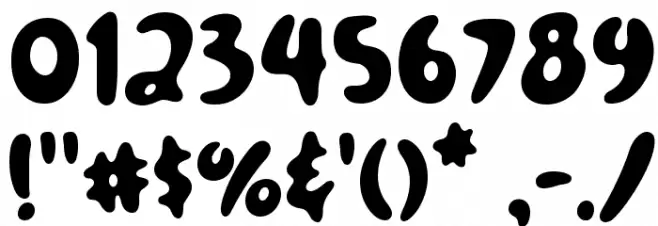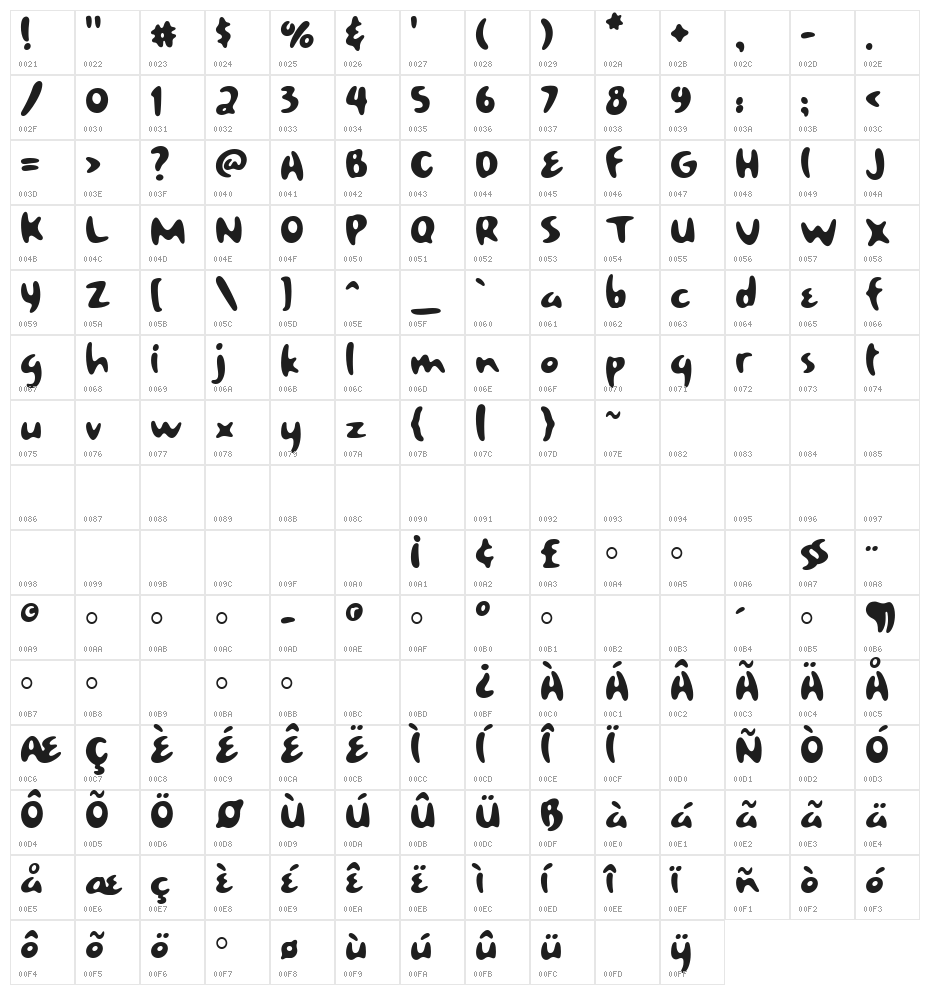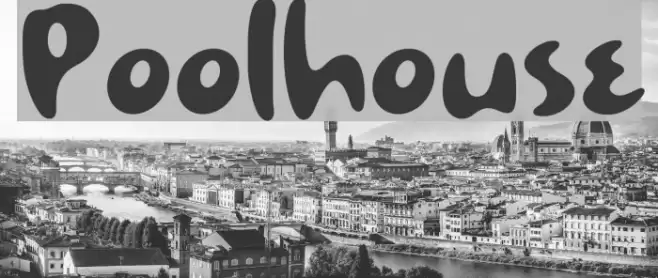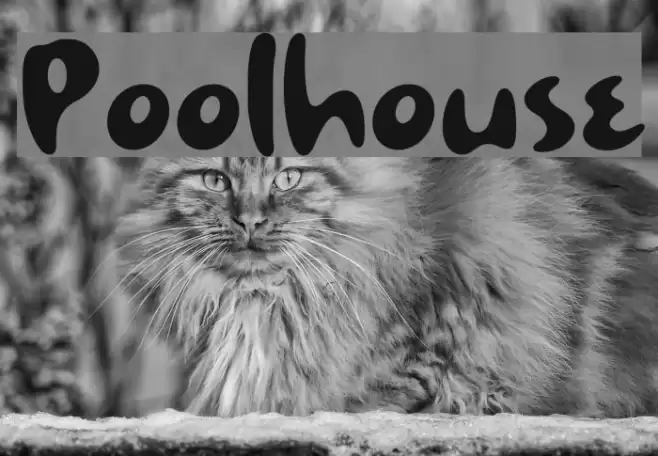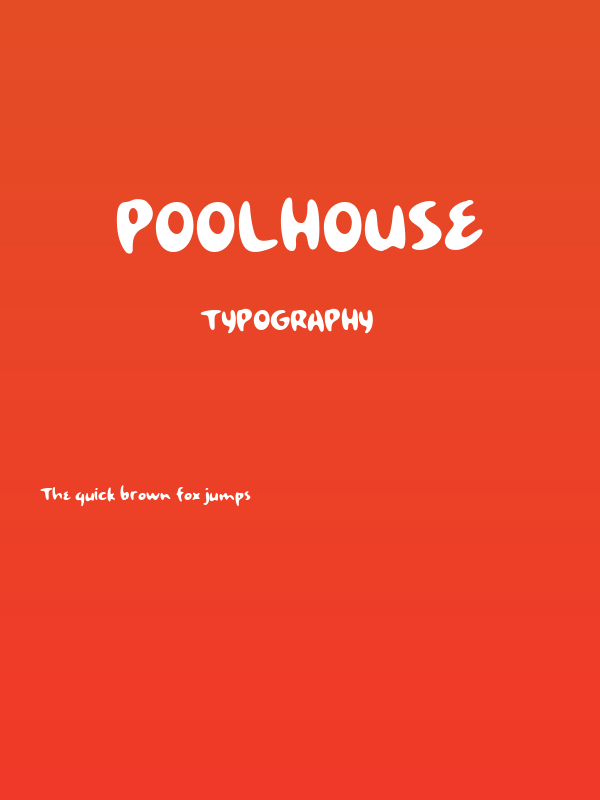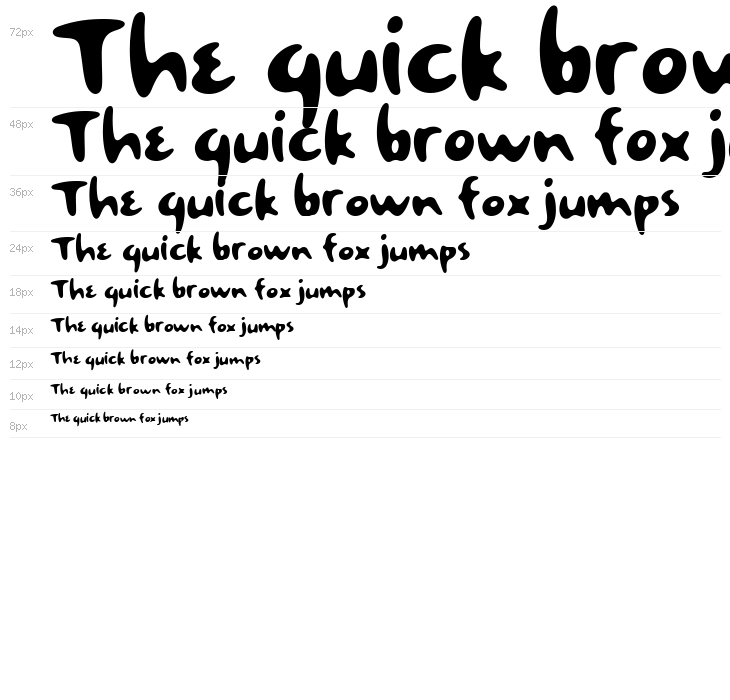
Poolhouse Font
Poolhouse Description
This font features a playful and bold design with a hand-drawn appearance. The characters are rounded and have a bubbly, organic feel, making them stand out with a unique personality. The uppercase and lowercase letters maintain a consistent style, with thick strokes and smooth curves. The numbers and special characters follow the same playful aesthetic, ensuring a cohesive look across all elements. This font exudes a sense of fun and creativity, perfect for projects that require a lively and informal touch.
| Overall Style | Playful, Creative |